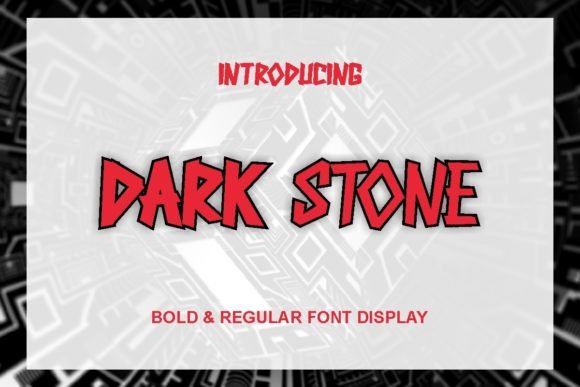
Introduction to Dark Stone Font
Dark Stone is a bold and think lettered display font.
It is suitable for designs such as t-shirts, sportswear, logos, advertisements, clothing, and more .
Key Features of Dark Stone Font
Why Choose Dark Stone Font?